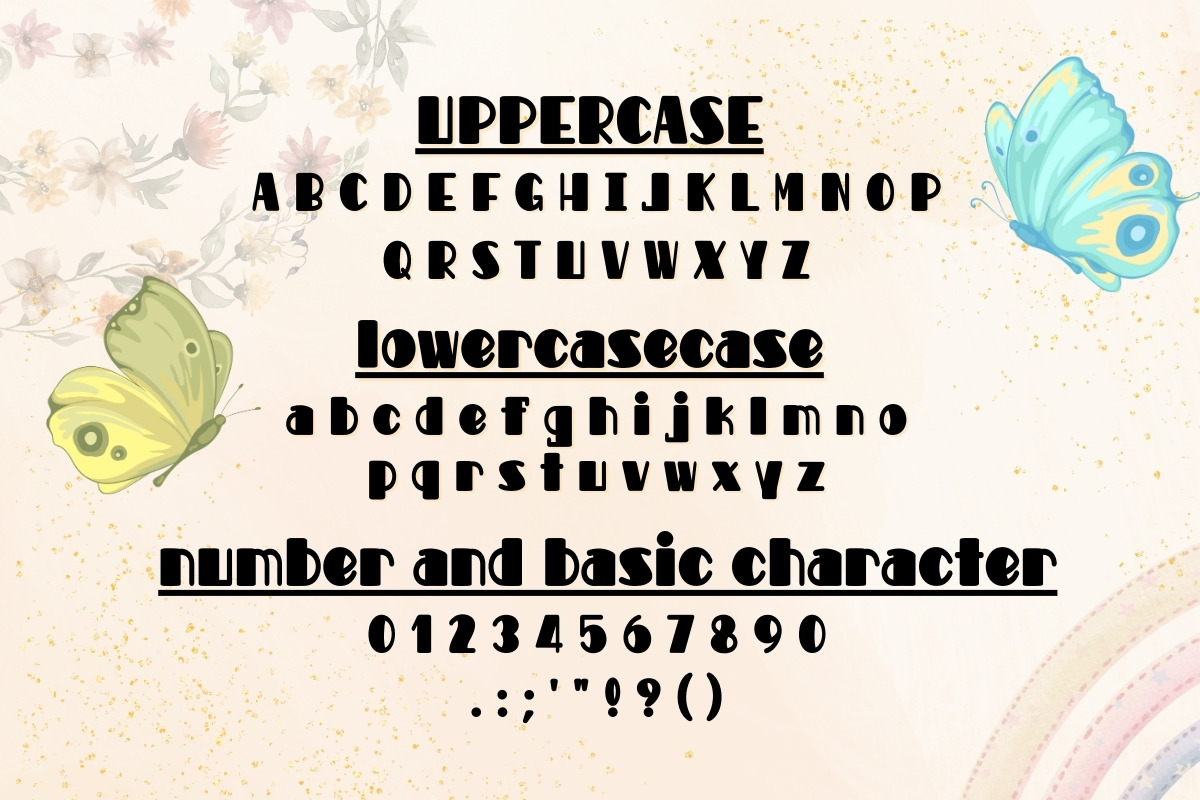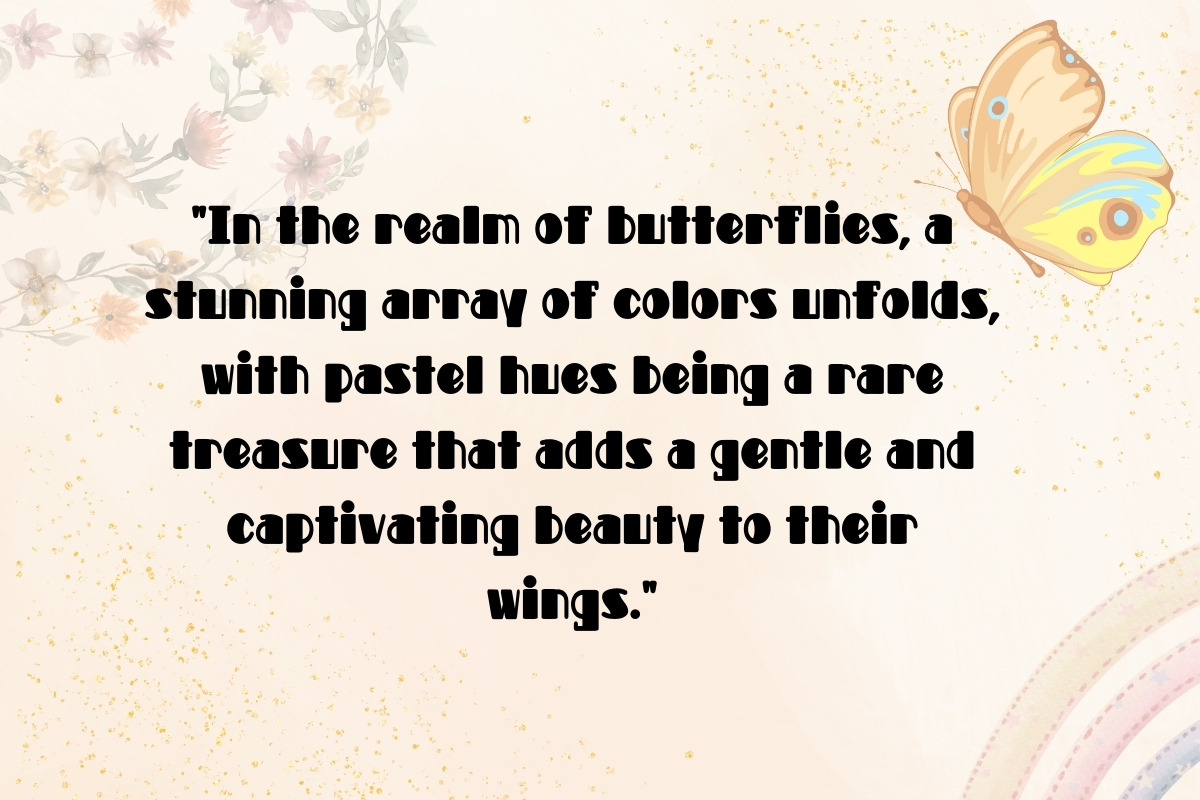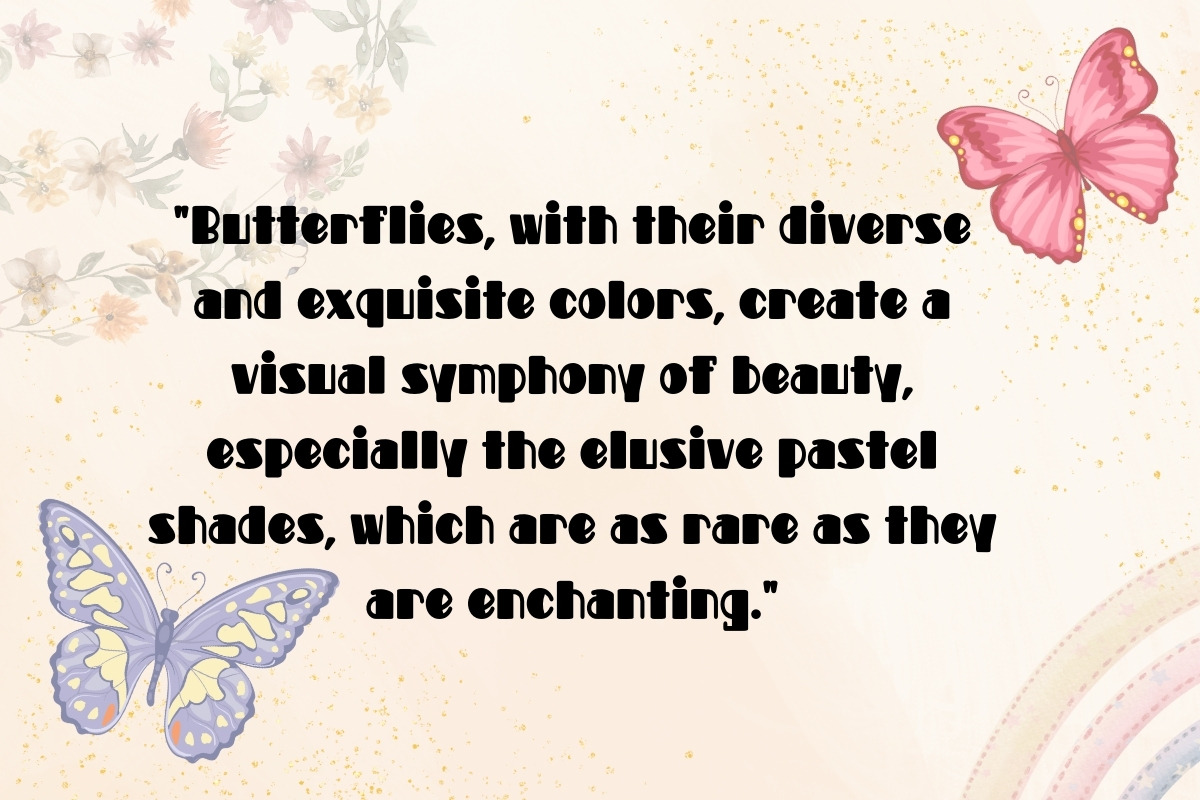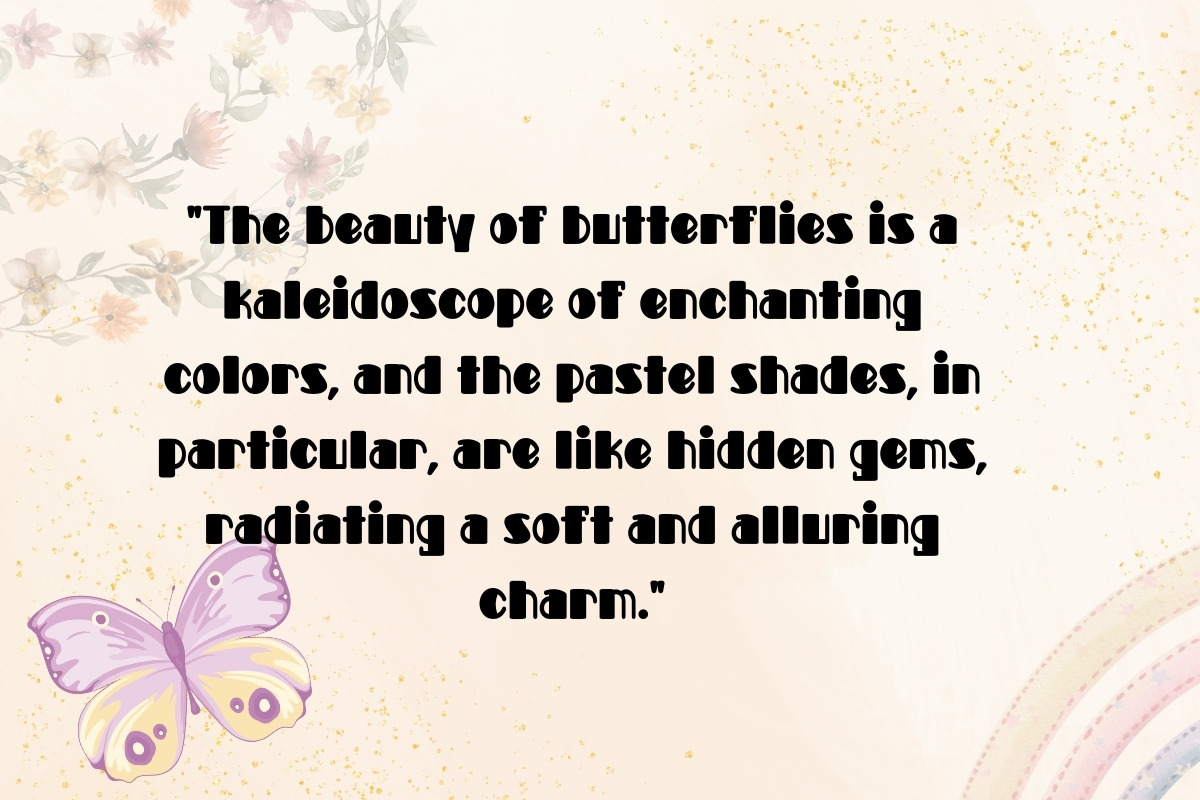
Pastel Sky - Display Handwritten
Create Magic with Pastel Sky's Curves and Swirls With its graceful curves and playful swirls, Pastel Sky font adds a touch of magic to your projects. Perfect for invitations, greeting cards, and anything that deserves a sprinkle of charm. Pastel Sky font. This delightful typeface effortlessly combines elegance and cuteness to bring a touch of whimsy to your projects.